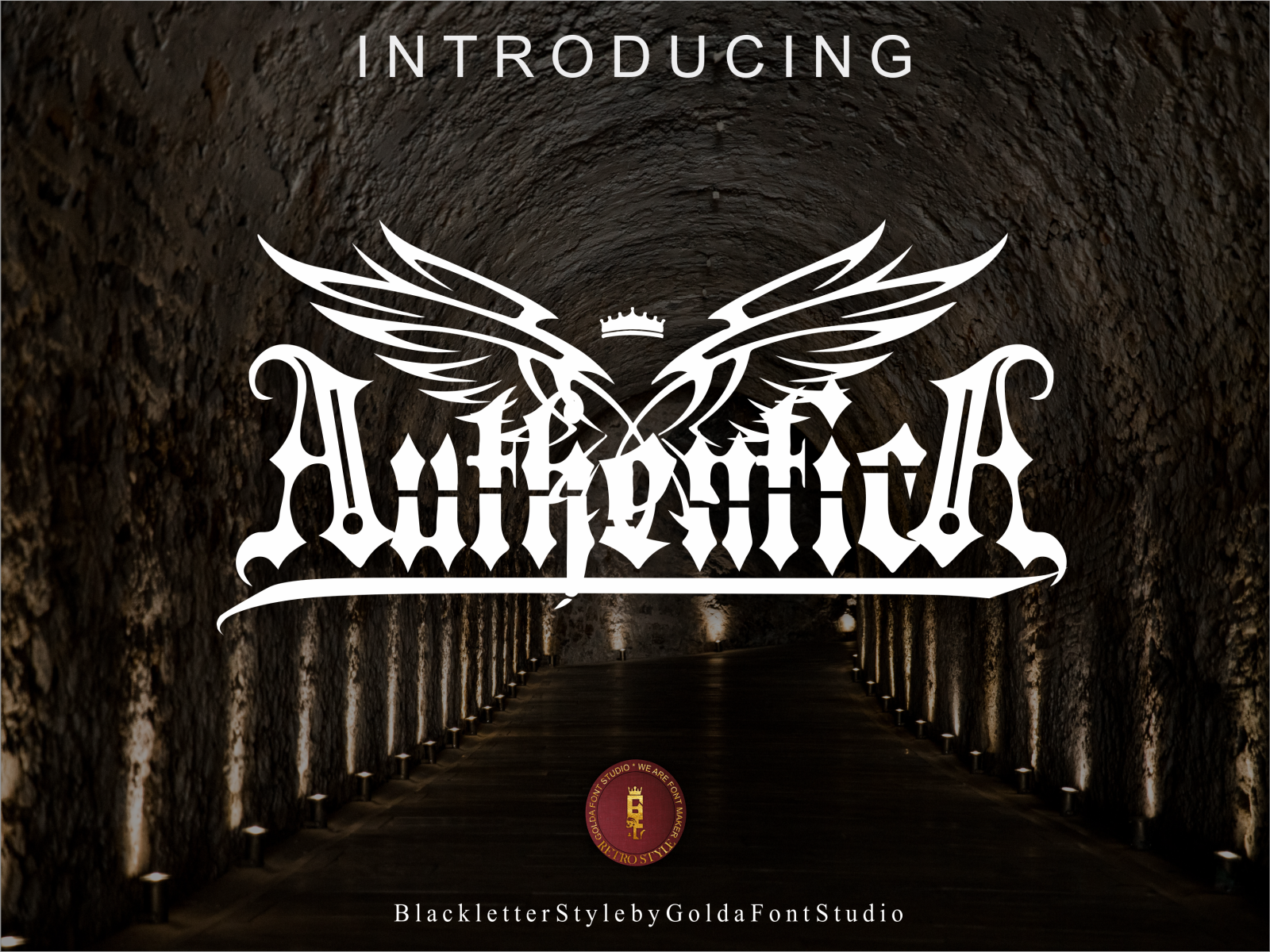
AUTHENTICA FONT blakcletter style
Golda Font Studio we present AUTHENTICA type blackletter with new style and elegant design suitable for poster design , clothing design, logotype design, design lettering quotes, social media needs such as Instagram, Facebook, and so on. AUTHENTICA will help you in your graphic design needs not only in its form AUTHENTICA is also supported with multi langue support and will also work for subtitles needs such as album songs and book cover subtitles.